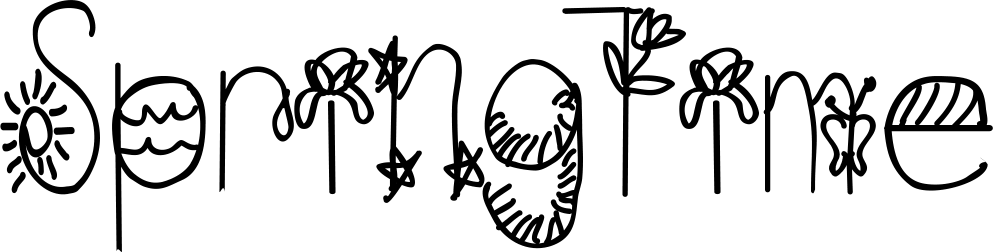
Spring Time Font
There are a lot of fonts in our library that you can use to turn your design into something fun, our cartoon font collection for example. However, if you want it to be cute, with just a touch of quirkiness, we strongly suggest Spring Time.
Inspired by natural elements, this Easter font works great for kid-related designs, creative digital artwork, apparel, etc. Impressive, right?